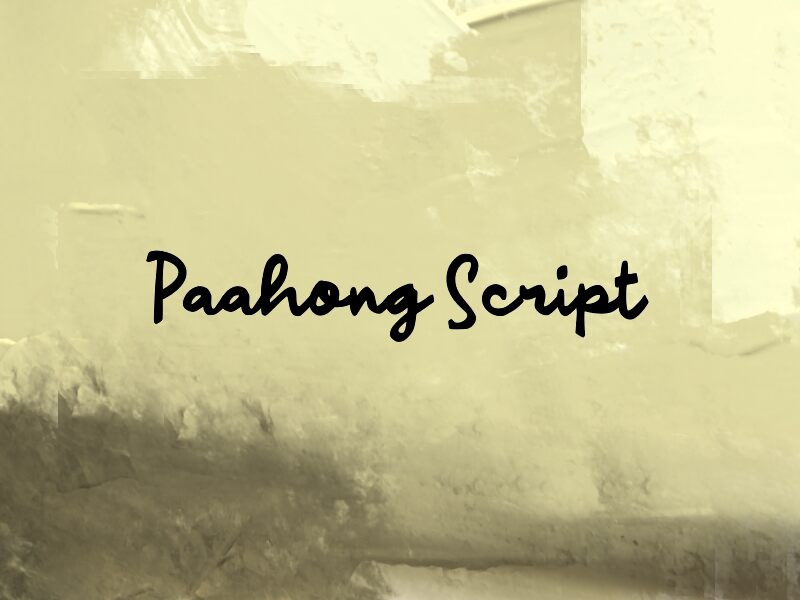
Paahong Script font by wep is an elegant and flowing script typeface filled with personal charm. Its modern and casual approach is visible in the expressive character shapes each carrying a nice and unique touch. Like we see in plenty of handwritten fonts, the letters are connected with a flowing line and followed with varying internal and external line thickness. Although inspired by the careless handwritten look and style, Paahong is in fact easily readable and boasts a sophisticated and neat appearance suitable for professional use.
This beautiful font is highly versatile in terms of visual use cases and applications. Various audiences and screens will perceive it in the best possible way in print or digitally, for personal or professional use. To achieve an outstanding result and visual design with Paahong Script, use it for social media, online advertising, posters, clothing, book and album covers among many other diverse applications.
Paahong Script is a beautifully crafted free font that embodies elegance and creativity. Ideal for various design projects, this font boasts a unique handwritten style that adds a personal touch to your work. Whether you are creating invitations, posters, or branding materials, Paahong Script will enhance your designs with its artistic flair.